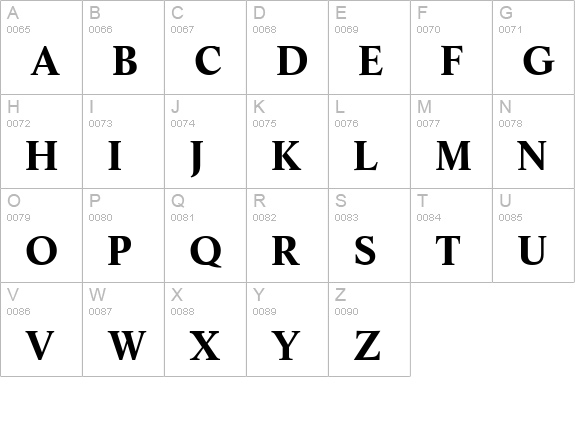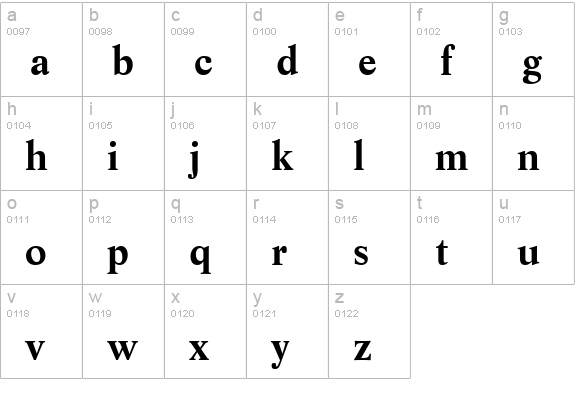
Resource SSi Bold Font Details
Resource SSi Bold is a strong, high-contrast variant in the Resource typeface family \xE2\x80\x94 well suited to headlines, attention-grabbing titles, and strong calls-to-action.
SSi Bold font is a captivating and versatile typeface that exudes a sense of strength and boldness in every letter. Its sleek and modern design makes it perfect for a wide range of creative projects, from logos and branding to headlines and posters. This font boasts a unique combination of geometric shapes and sharp edges, resulting in a visually striking and impactful look. The thick strokes and defined curves give SSi Bold font an authoritative presence, making it ideal for designs that demand attention. What makes SSi Bold font even more appealing is that it is freely available to download at FontsMarket.com. This means that designers and creatives can access this high-quality font without any cost, making it a valuable resource for both personal and commercial projects. With its bold and commanding presence, SSi Bold font can instantly elevate any design. Whether you're designing a bold and modern website, creating eye-catching packaging, or crafting a strong visual identity, this font is sure to make a lasting impression. The versatility of SSi Bold font is further enhanced by its extensive character set, which includes uppercase and lowercase letters, numbers, punctuation marks, and various special characters. This allows designers to fully customize their designs and create unique typographic compositions. In addition to its striking appearance and wide range of characters, SSi Bold font also offers exceptional legibility. The carefully designed letterforms ensure that text remains clear and readable, even at smaller sizes or in challenging design contexts. Whether you're a professional designer or a hobbyist enthusiast, SSi Bold font is a must-have resource in your font library. Its combination of boldness, versatility, and legibility make it a reliable choice for any design project. And with the added benefit of being freely available to download at FontsMarket.com, there's no reason not to enhance your designs with this impressive typeface.